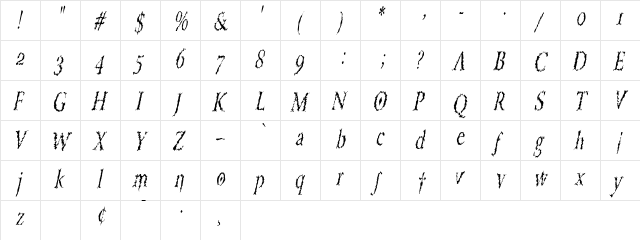
PorcupineRomanCondensed Italic Font Preview
Design Context for PorcupineRomanCondensed Typeface
PorcupineRomanCondensed takes a measured approach to typography — its balanced proportions and neutral character make it a reliable workhorse for both digital and print work. Its italic angle brings a sense of urgency and motion to the letterforms. Its narrow stance lets it pack a punch even in space-constrained designs.